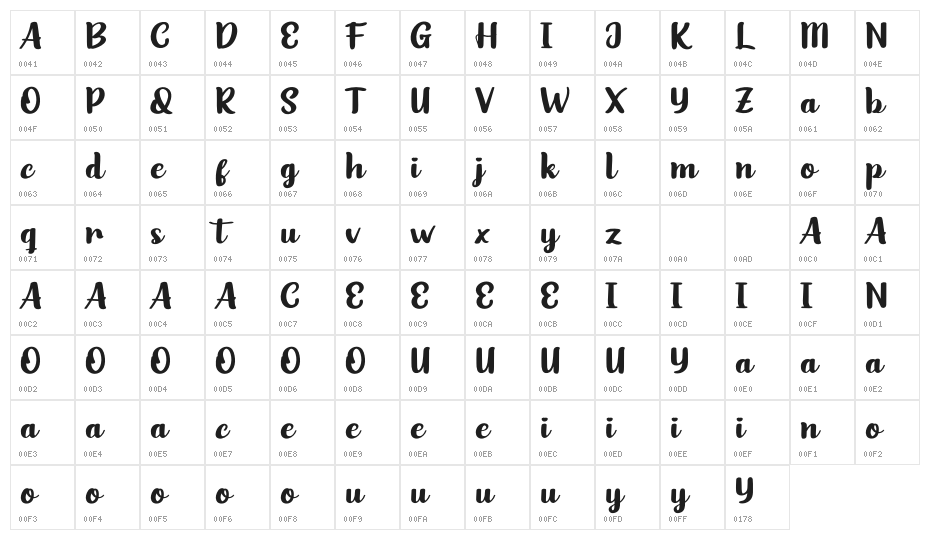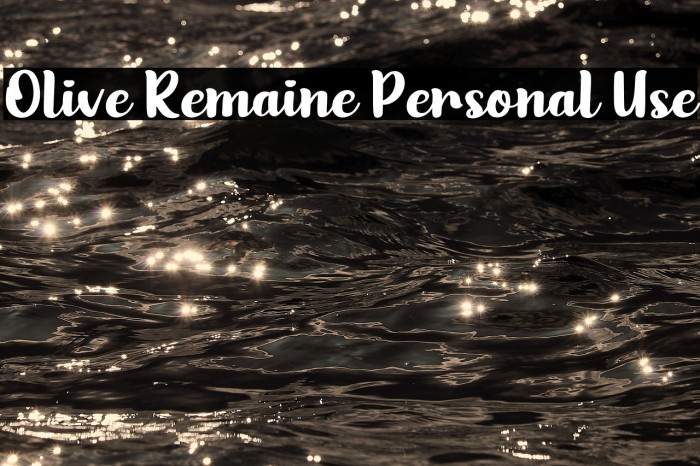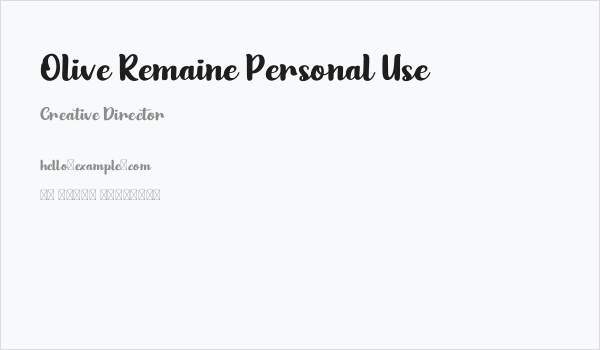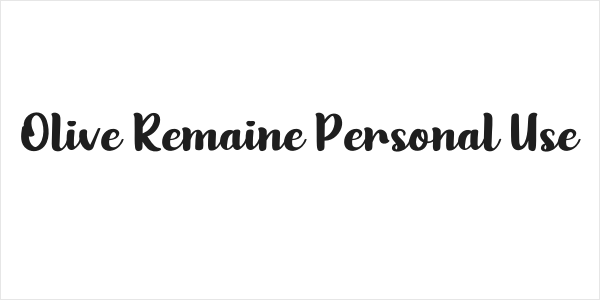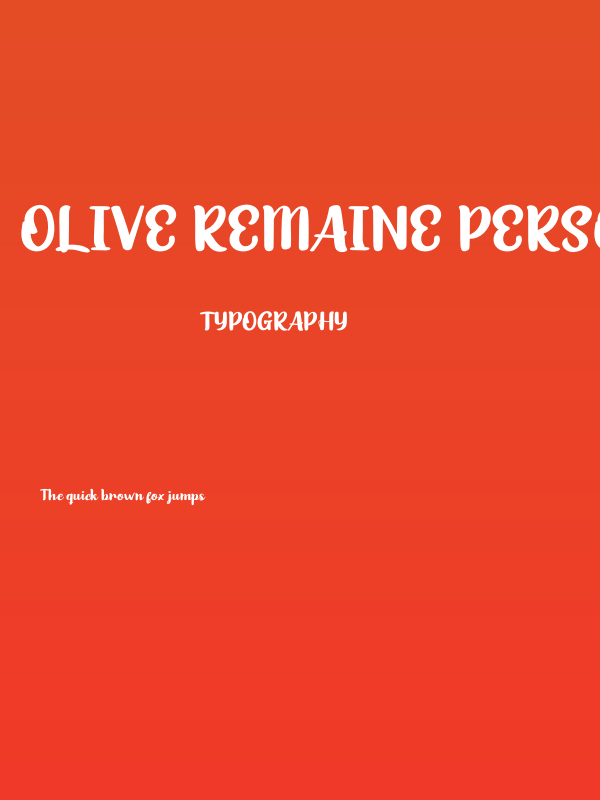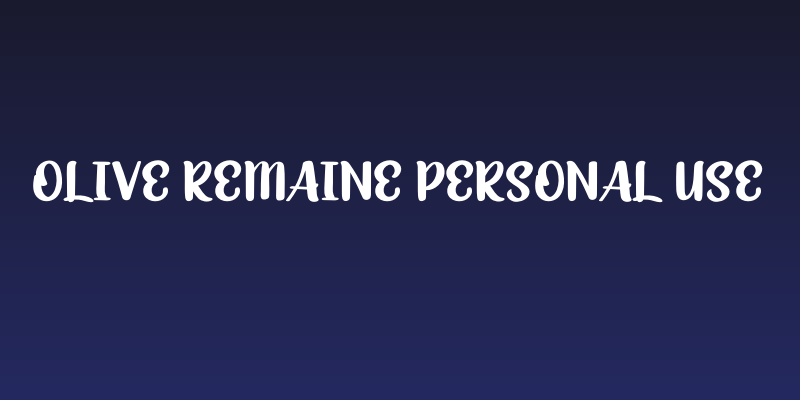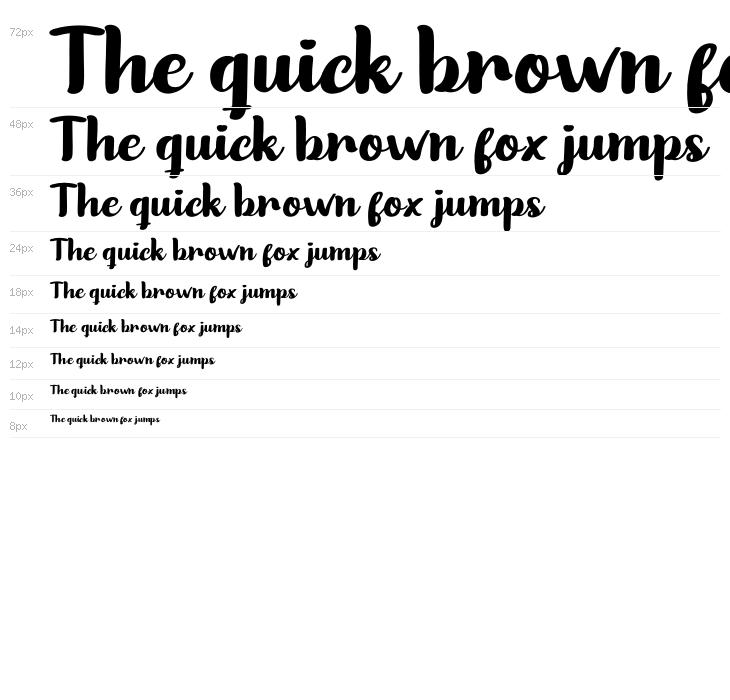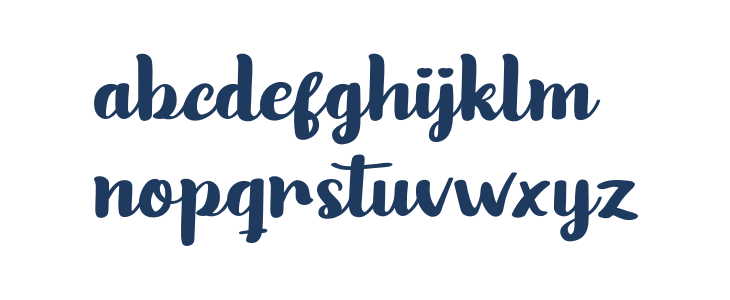
Olive Remaine Personal Use Font
Olive Remaine Personal Use Description
This font features a bold, flowing script style that combines elegance with a touch of playfulness. The uppercase letters are tall and slightly narrow, with smooth curves and a consistent stroke width that adds to its readability. The lowercase letters maintain the same fluidity, with some characters featuring distinctive loops and swashes that enhance its decorative appeal. The font has a modern yet classic feel, making it versatile for various design projects. Its bold weight and consistent character spacing ensure clarity, even at smaller sizes.
| Overall Style | Modern Classic |
| Proposed Projects | Ideal for wedding invitations, branding, logo design, and social media graphics. |